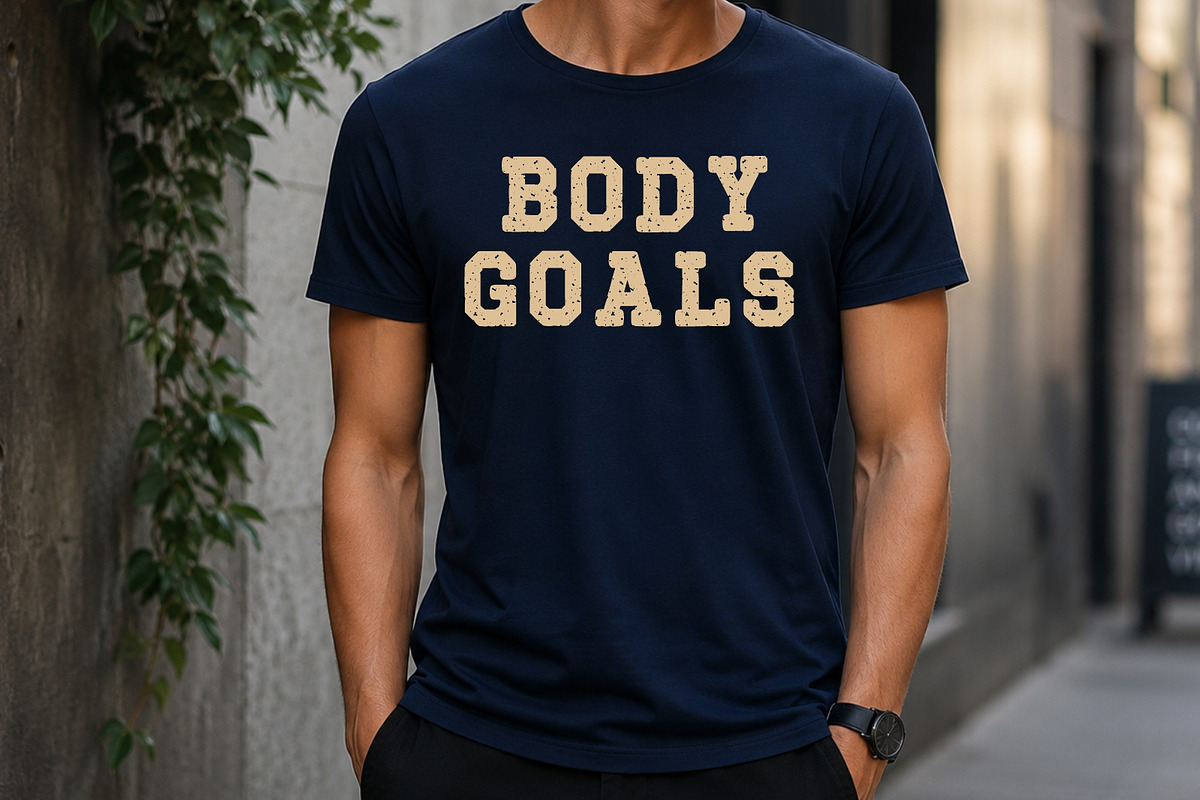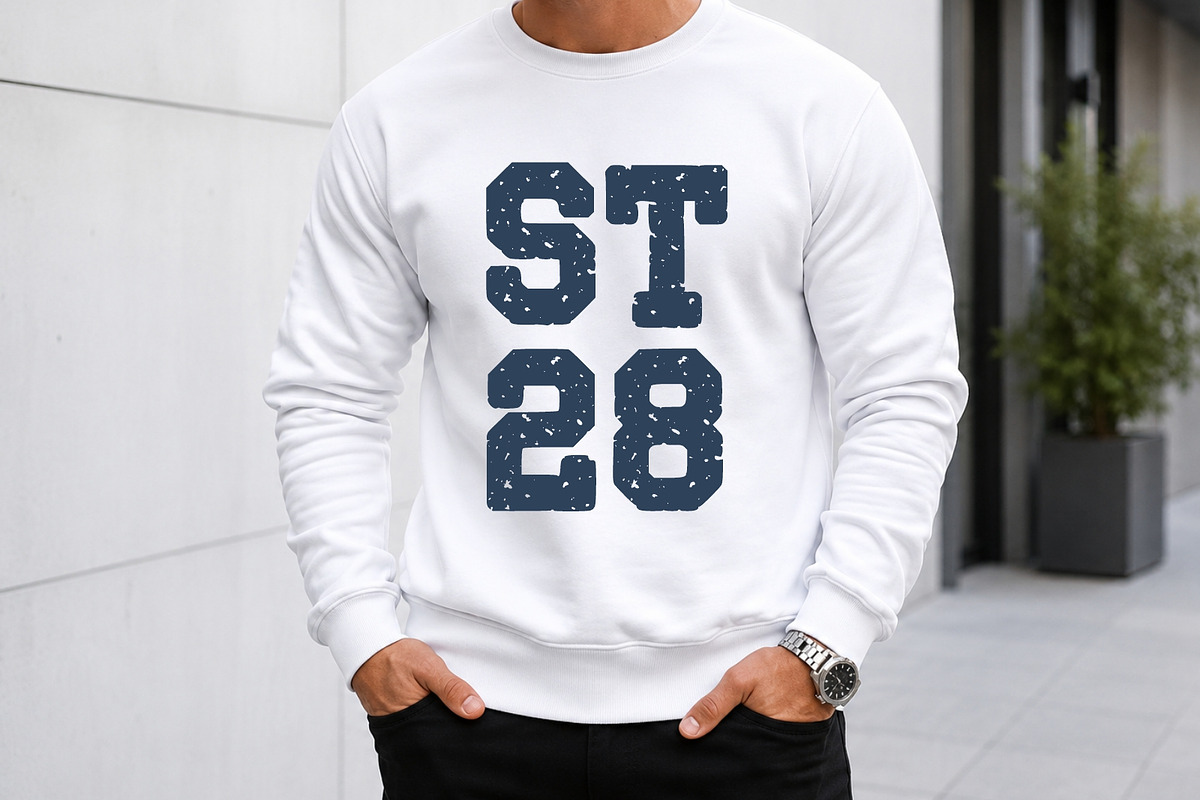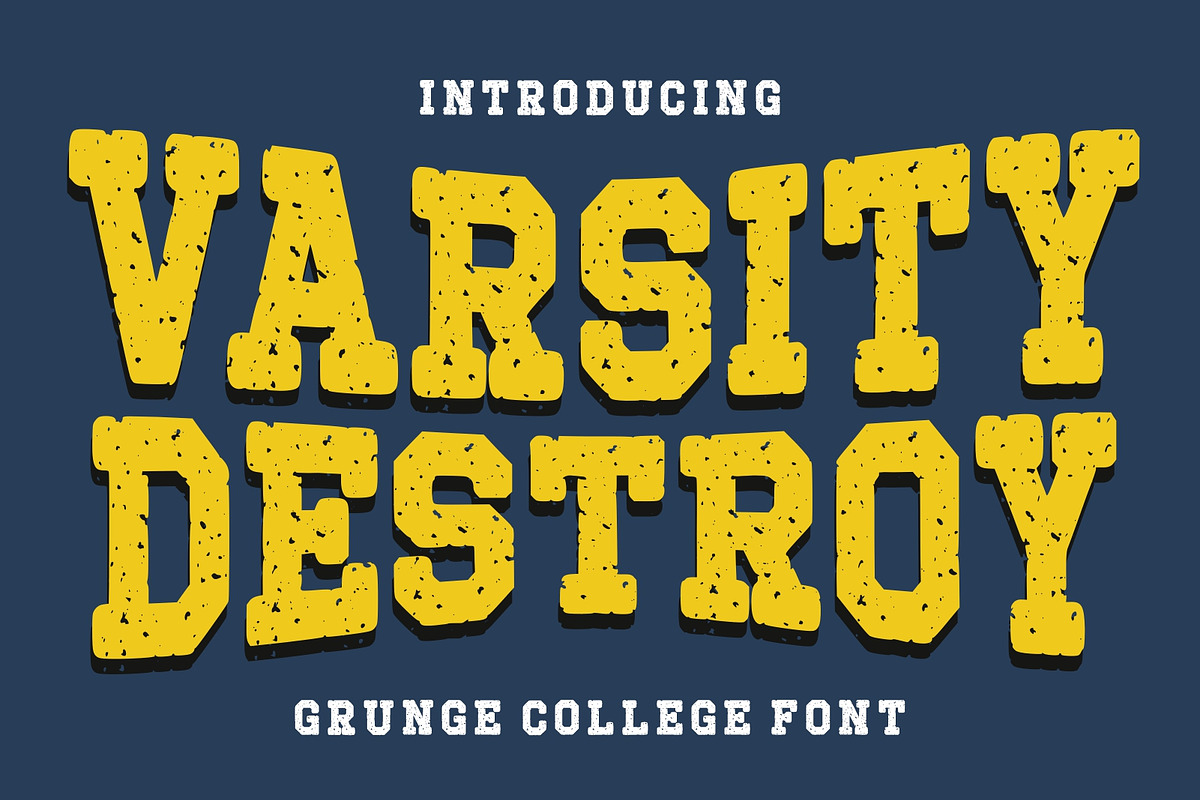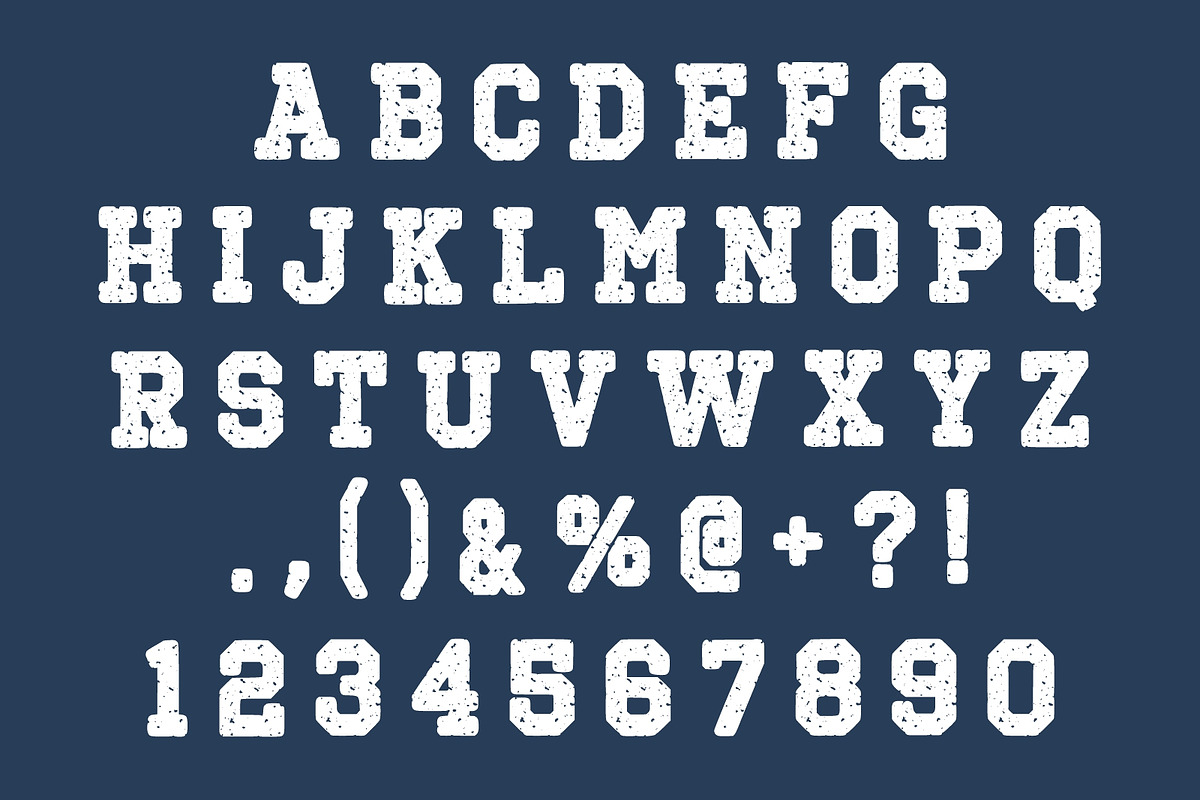
Varsity Destroy
Varsity Destroy is a bold and energetic grunge college font inspired by classic varsity lettering, championship sports culture, and vintage American campus aesthetics. Combining strong collegiate letterforms with authentic distressed textures, this typeface delivers a rugged athletic personality that instantly captures attention.
Designed for creators who want to bring a competitive and rebellious edge to their projects, Varsity Destroy features bold block characters, textured details, and a powerful sports-inspired presence. The distressed finish gives each letter a worn, battle-tested appearance, making it perfect for designs that need authenticity, strength, and vintage character.
Whether you’re creating team logos, sports apparel, varsity jackets, football graphics, basketball merchandise, school branding, event posters, banners, social media content, or retro-inspired marketing materials, Varsity Destroy provides the perfect balance between classic collegiate tradition and modern grunge style.
Its highly readable structure ensures excellent performance in both large headlines and branding applications, while the rough distressed texture adds depth and personality to every design. From university-themed projects and athletic branding to streetwear collections and custom merchandise, this font helps create visuals that feel bold, confident, and unforgettable.
Varsity Destroy is the perfect choice for designers seeking a powerful varsity display font with vintage sports energy, distressed character, and timeless collegiate appeal.